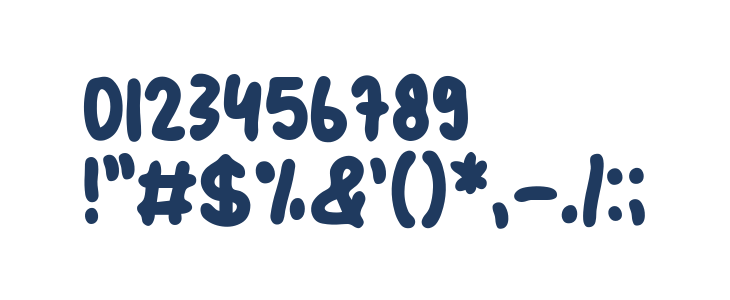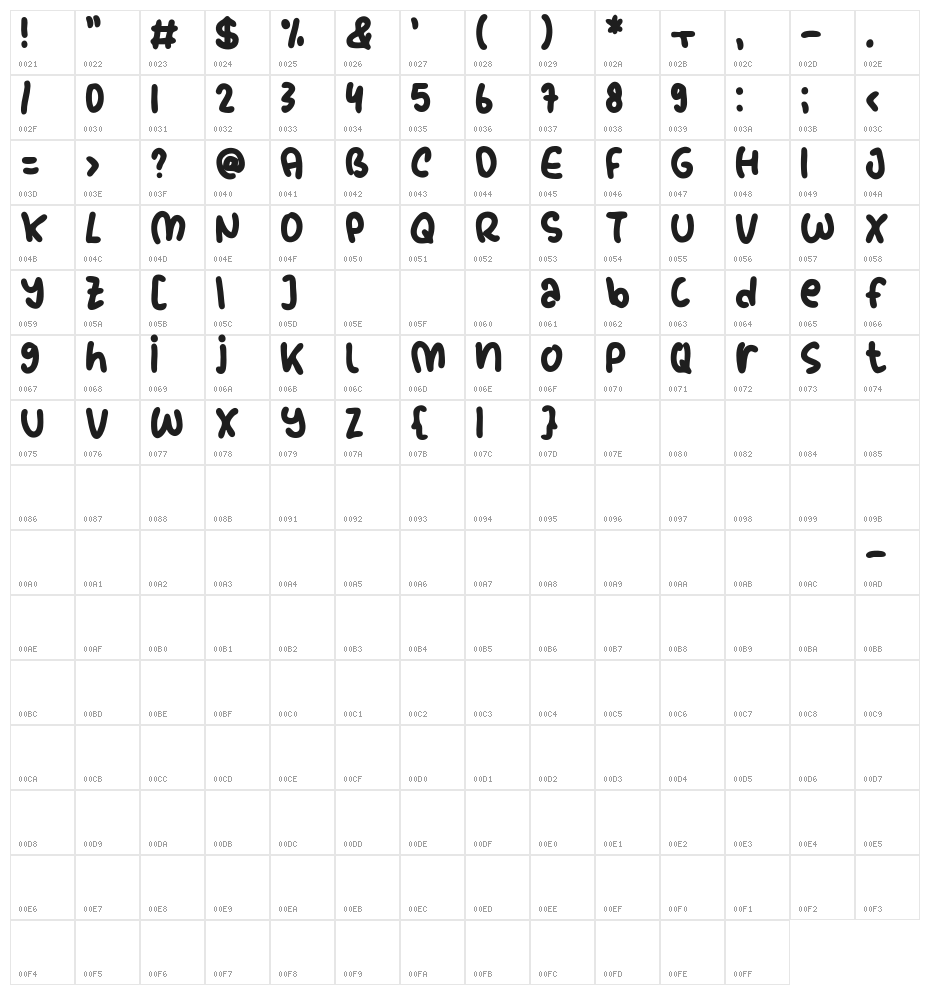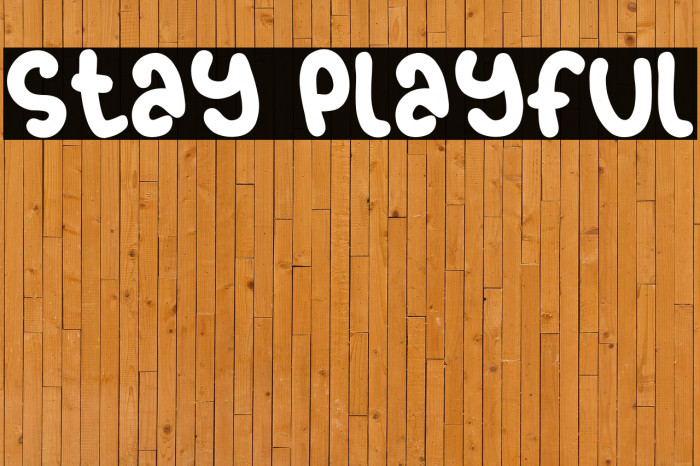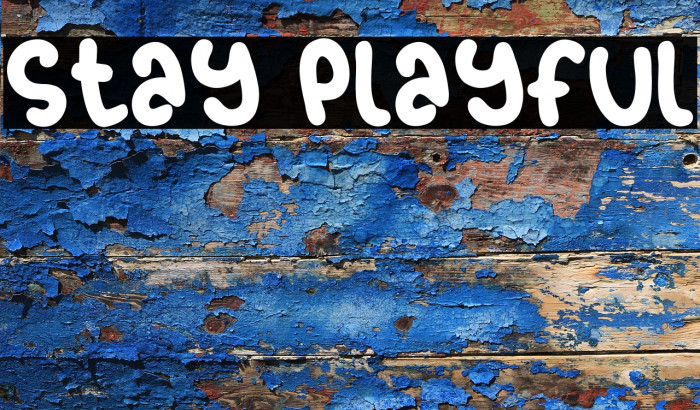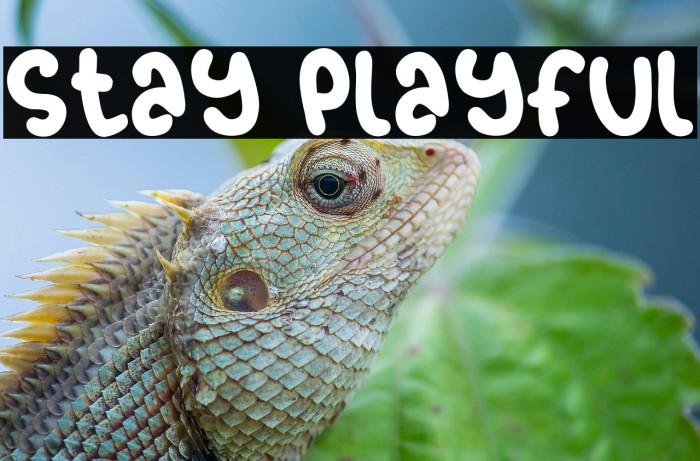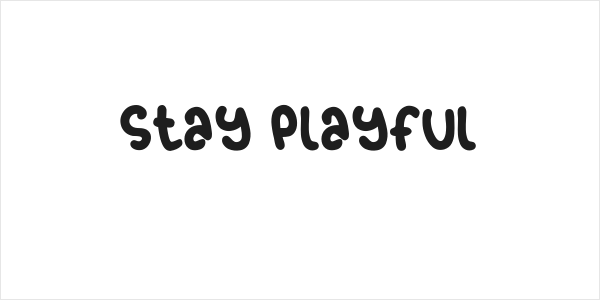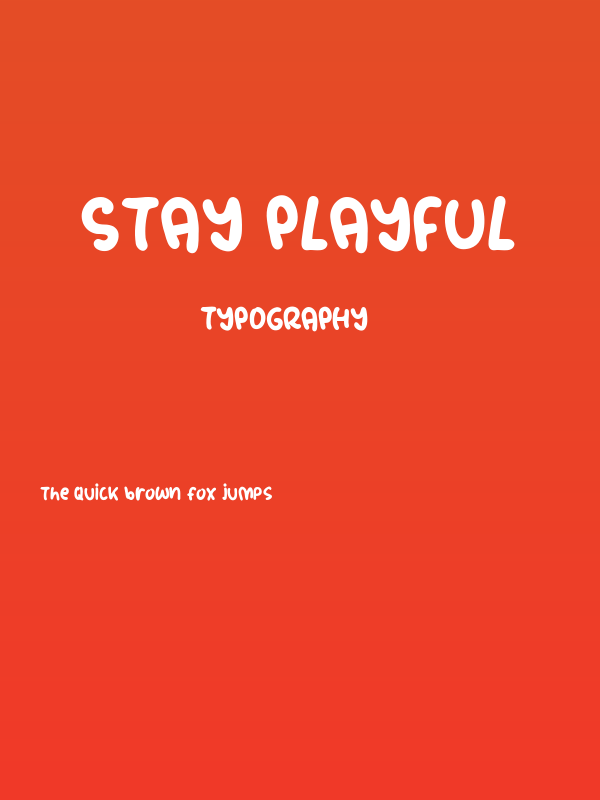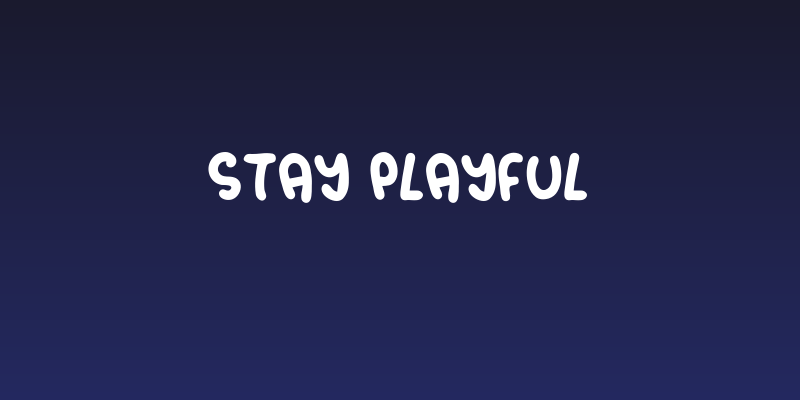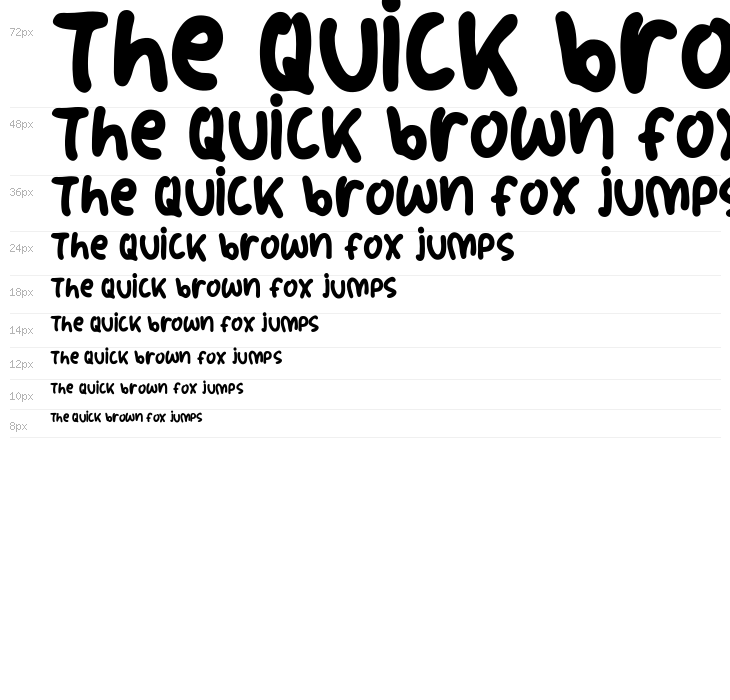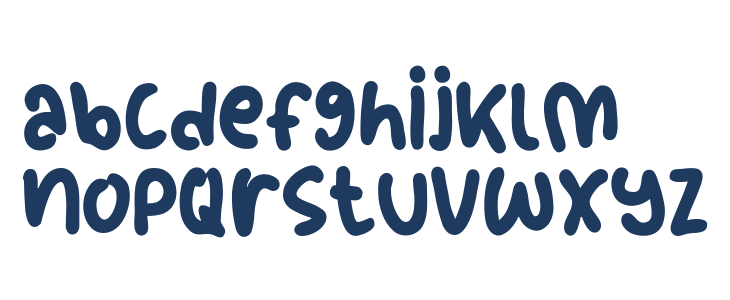
Stay Playful Font
Stay Playful Description
This font exudes a playful and whimsical character, with its bold, rounded forms and slightly irregular shapes. The letters are thick and have a hand-drawn quality, giving them a friendly and approachable feel. The strokes are consistent in width, contributing to a cohesive appearance across all characters. The numbers and special characters maintain the same playful style, ensuring uniformity throughout. This font is ideal for projects that require a fun and informal touch, such as children's books, playful branding, or casual invitations.
| Proposed Projects | Ideal for children's books, playful branding, casual invitations, and creative posters. |